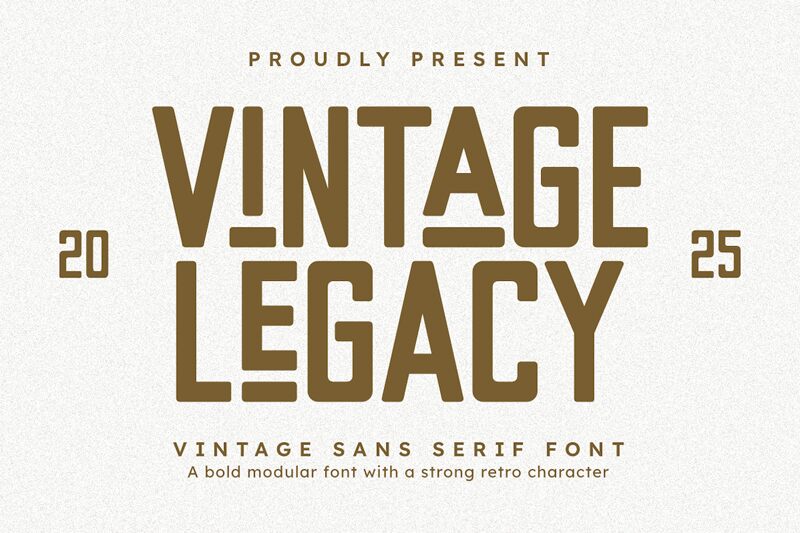
Vintage Legacy font is a free font inspired by old retro typography and vintage lettering. This outstanding typeface is able to bring a vintage vibe to your design by specifically paying attention to the details of each letterform design. This option is perfect for designers who are a fan of old-style typography which has been trending over recent years. This font is a versatile typeface that can be adjusted to suit a variety of needs.